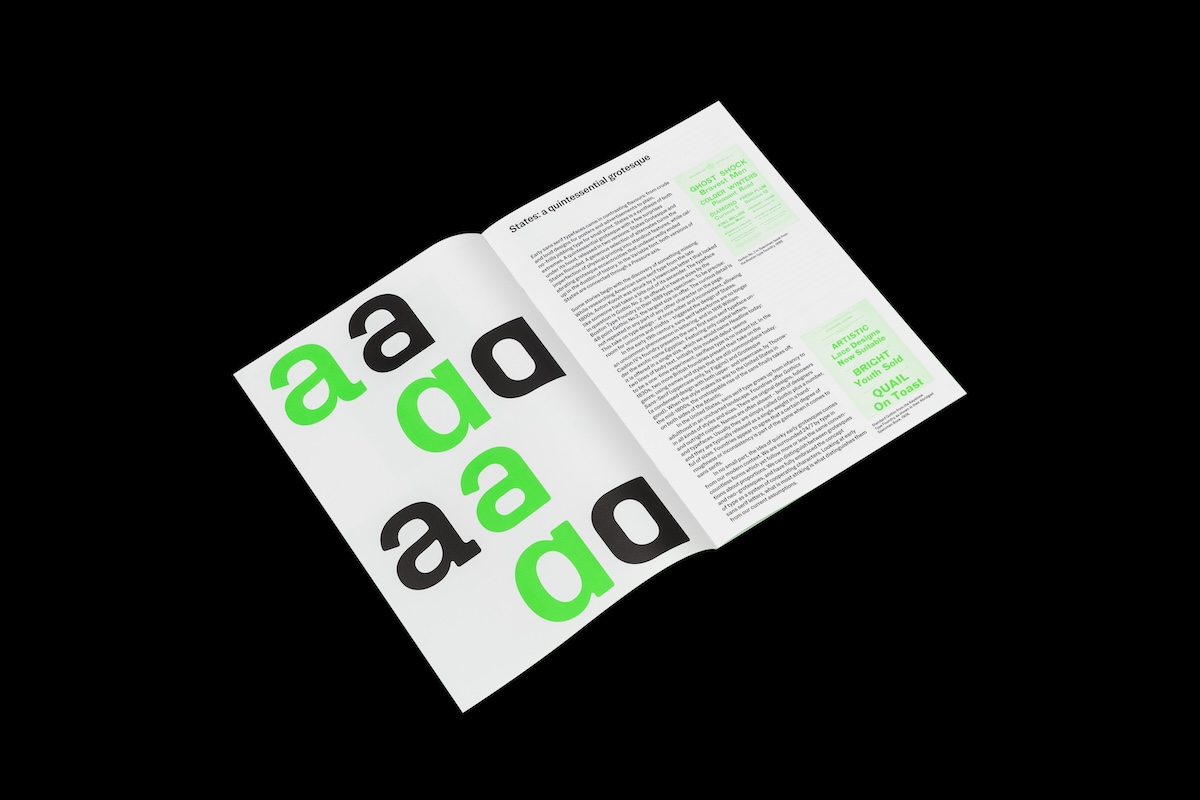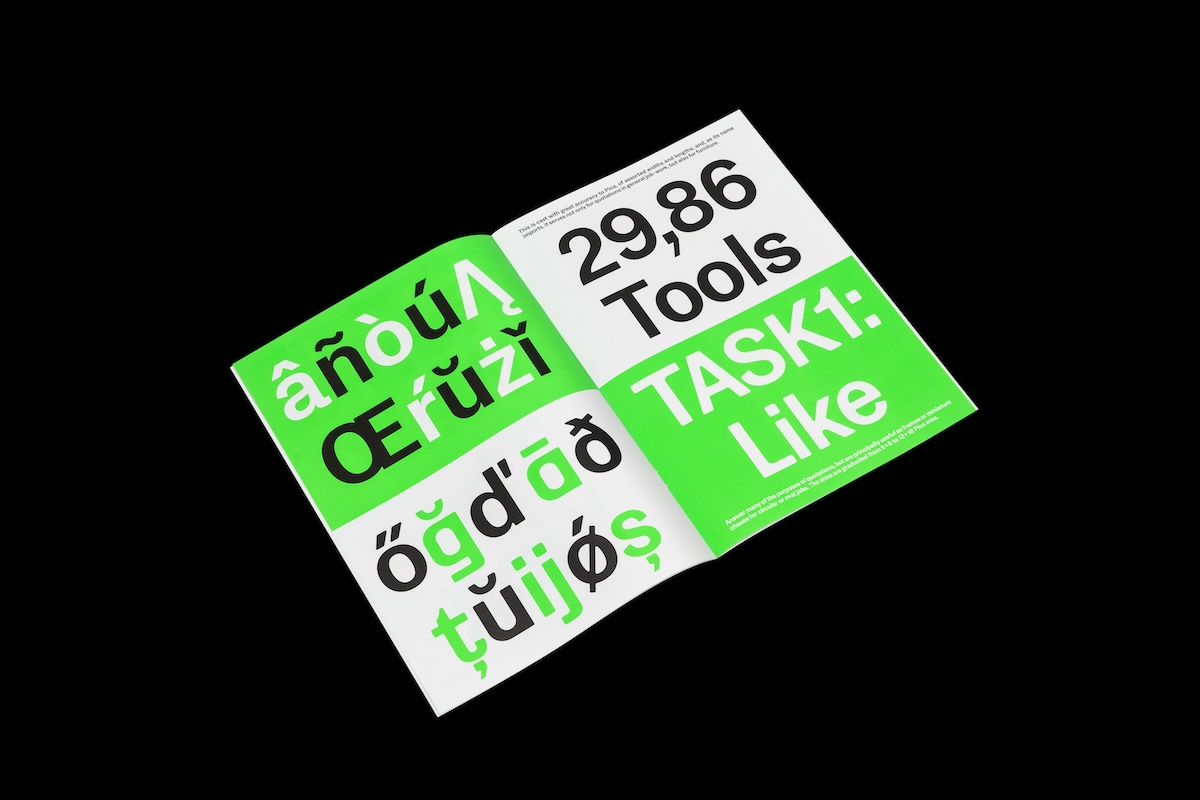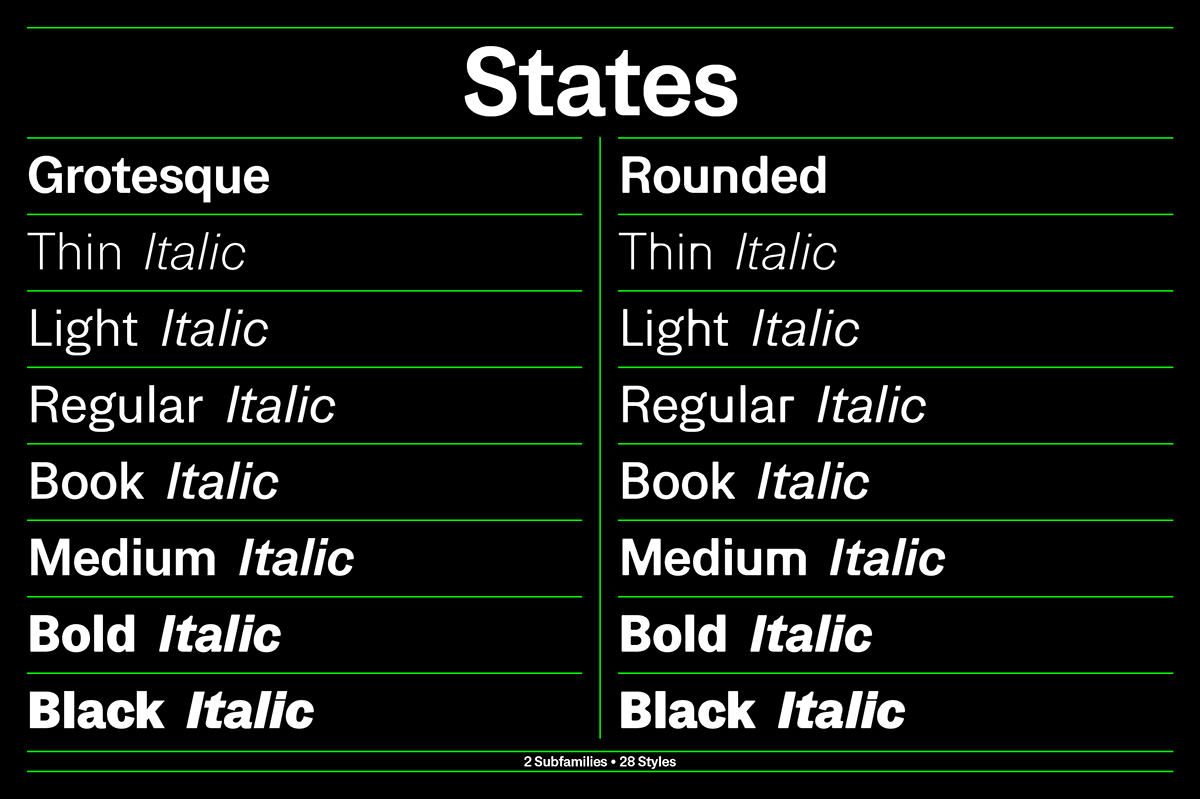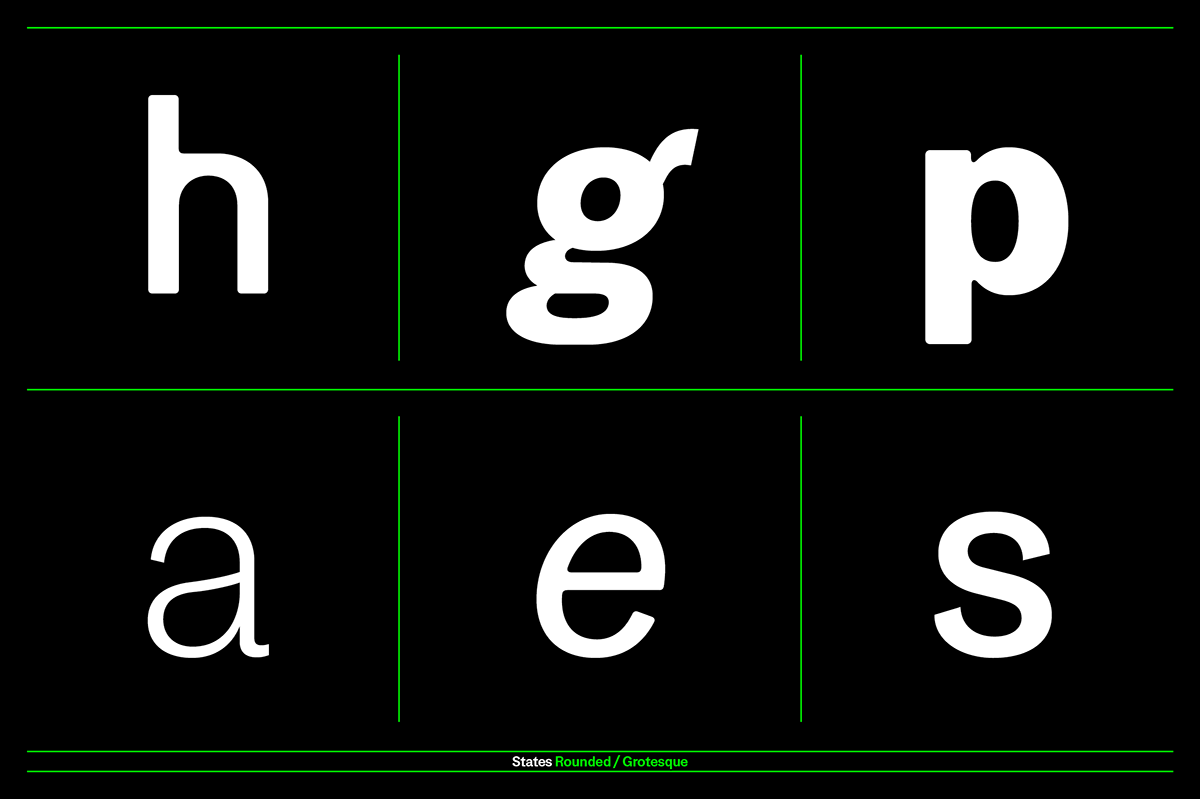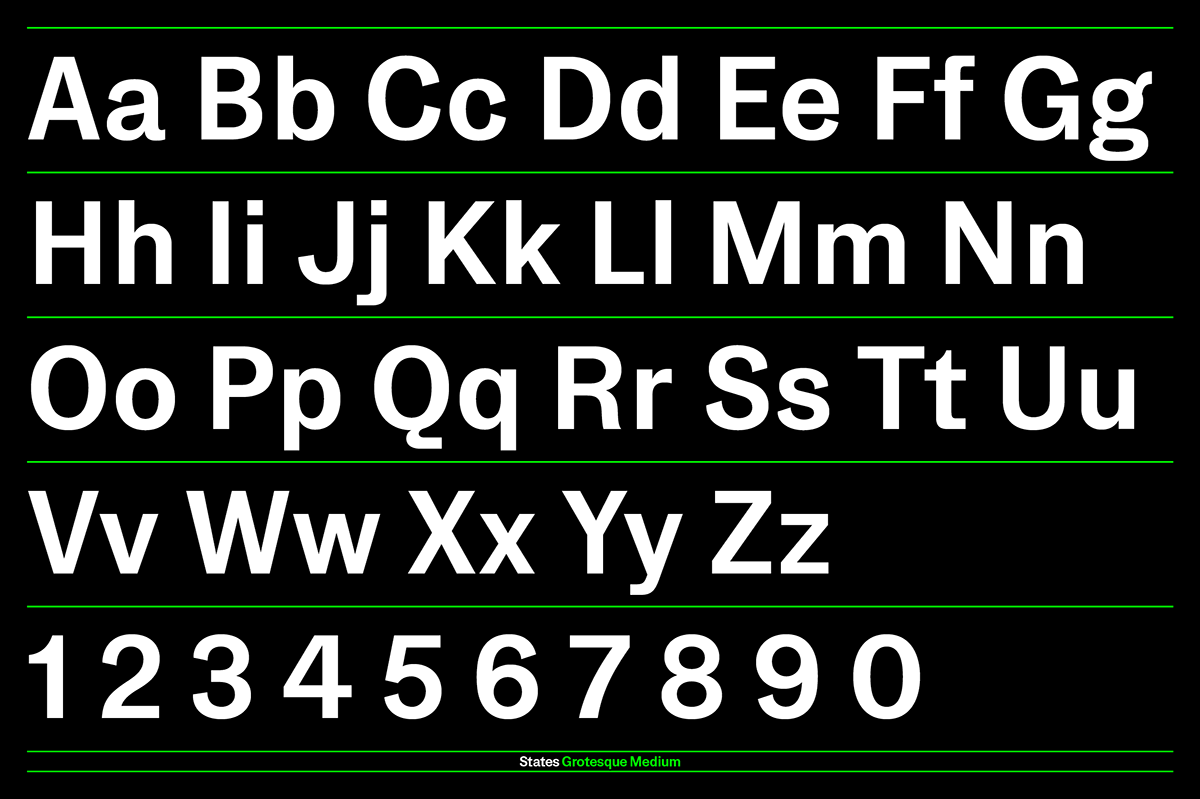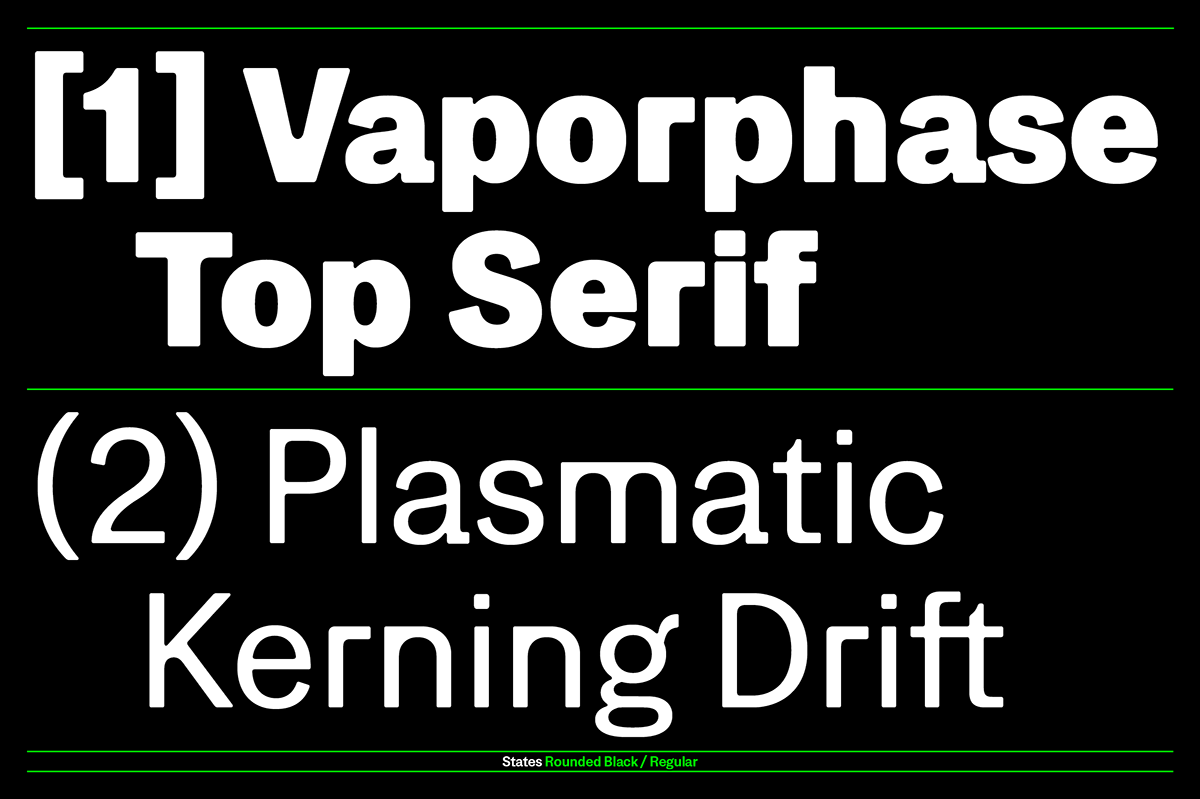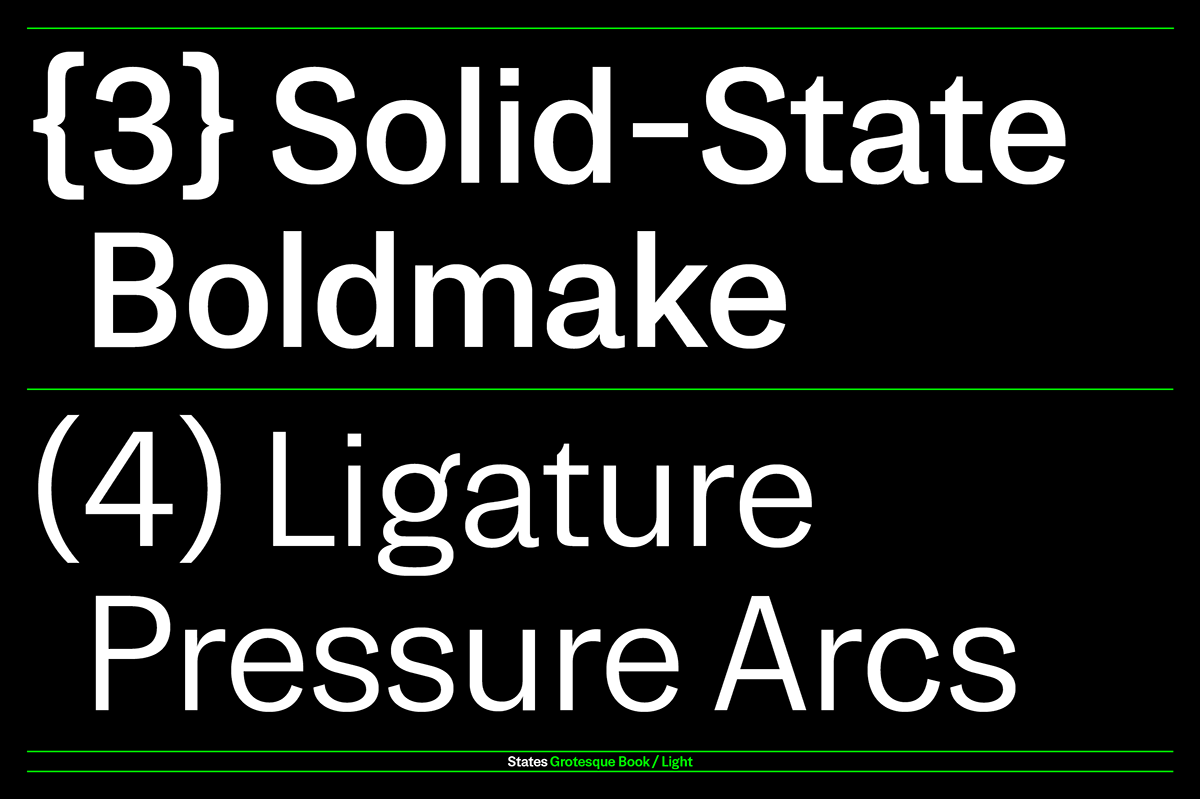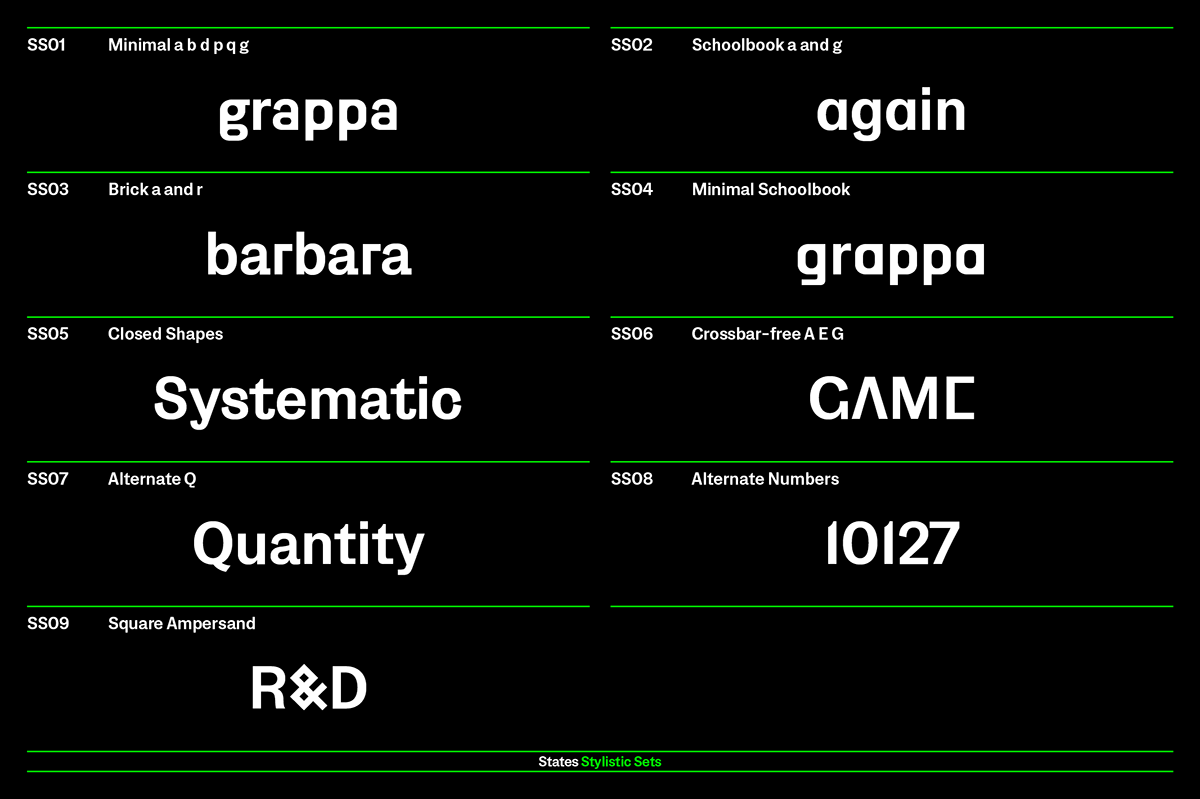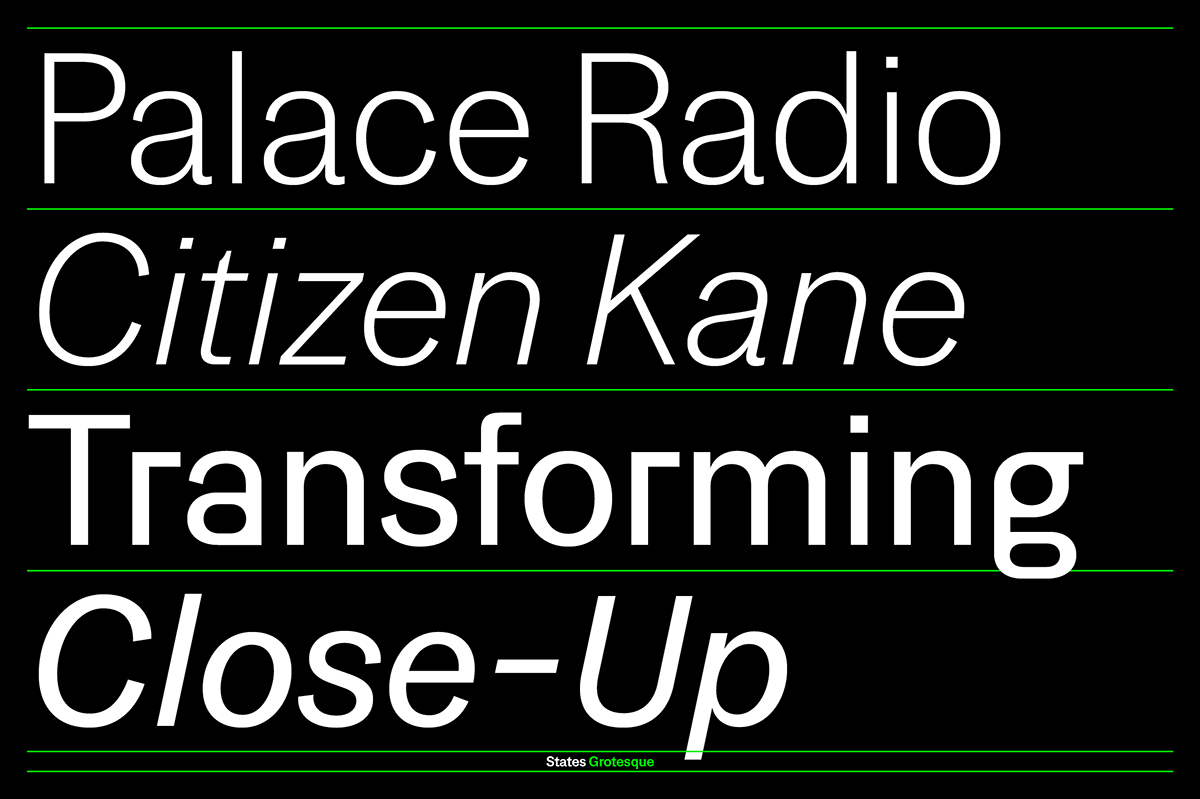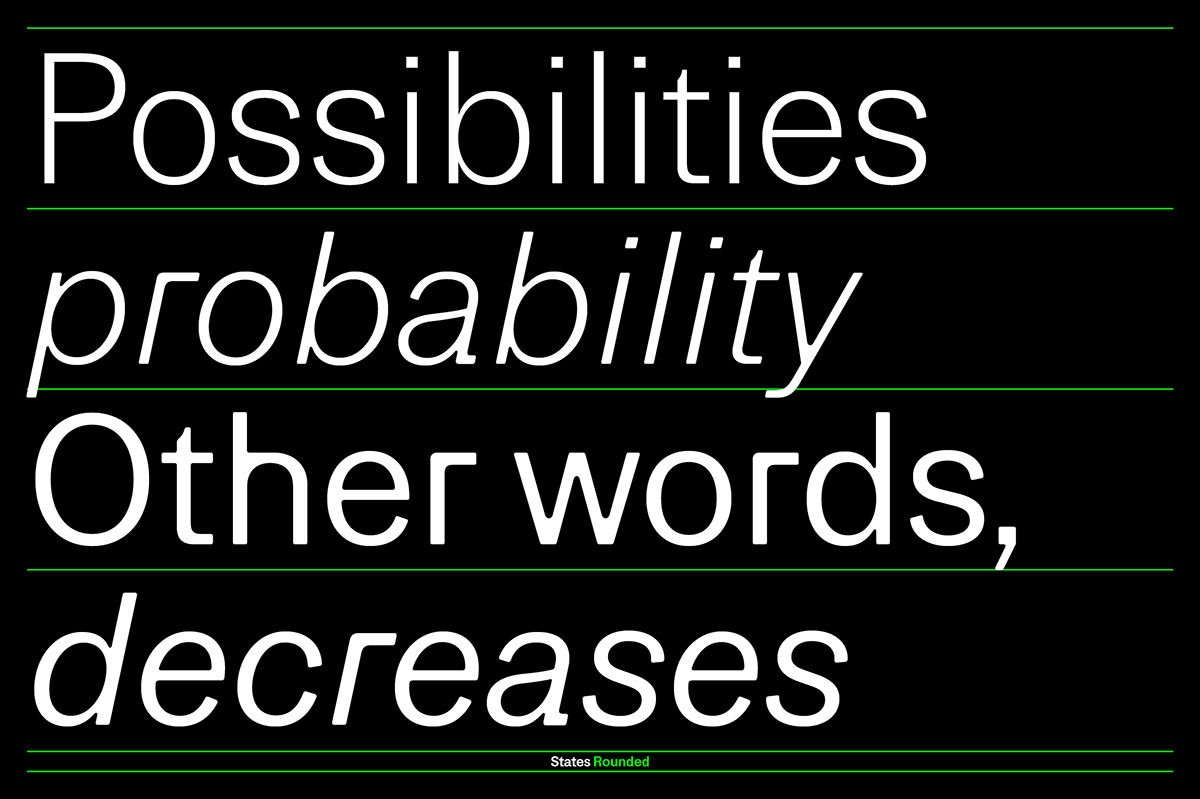
New Typeface States
A Quintessential Grotesque
Fatype has just release States, a new grotesque family in 2 versions and 28 styles.
Early sans serif typefaces came in contrasting flavours: from crude and loud designs for posters and advertisements to plain, no-frills jobbing type for small print. States is a synthesis of both extremes. A quintessential grotesque with a few surprises under its hood, released in two versions: States Grotesque and States Rounded. A love letter to the past through today’s lens, honoring the roots of typefaces as metal tools, with a generous selection of alternates turning the imperfections of letterpress printing into standout features, celebrating grotesque eccentricities that undeservedly ended up in the dustbin of history. In the Variable font, the sharp outlines of Grotesque and the soft edges of Rounded are connected through a Pressure axis.
Some stories begin with the discovery of something missing. While researching American sans serif type from the late 1800s, Anton Koovit was struck by a lowercase letter t that looked like someone had taken a bite out of its ascender. The typeface in question is Gothic No. 2, as offered in twelve sizes by the Boston Type Foundry in their 1889 type specimen. To be precise: 48 point Gothic No.2, the largest size on offer. The curious detail is not repeated in any part of any other character on the page. This take on type design – at once sober and inconsistent, allowing room for unicorns and misfits – triggered the design of States.
In the early 19th century, sans serif letterforms are no longer an uncommon phenomenon in lettering, and in 1816 William Caslon IV’s foundry presents the very first sans serif typeface under the exotic name “Egyptian.” Featuring only capital letters, it is offered in a single size, which we would name “Headline” today: two lines of body text. Initially this modest debut seems to be a one-time experiment; serifless type is no instant hit. In the 1830s, two more British foundries present their take on the genre, using names and styles that are still commonplace today: “Sans-Serif” (uppercase only, by Figgins) and “Grotesque” (a condensed design with both upper- and lowercase, by Thorowgood). When the style makes its way to the United States in the mid-1800s, the unstoppable rise of the sans finally takes off, on both sides of the Atlantic.
In the United States, sans serif type grows up from infancy to adulthood in an uncharted landscape. Foundries offer “Gothics” in all kinds of styles and sizes. There are original designs, followers and outright copies. Names are often absent – both of designers and typefaces. Usually they are simply called “Gothic” plus a number, and they are typically released as a single weight in a handful of sizes. Foundries appear to agree that a certain degree of roughness or inconsistency is part of the game when it comes to sans serifs.
In no small part, the idea of quirky early grotesques comes from our modern context. We are surrounded 24/7 by type in countless forms which yet follow more or less the same conventions about proportions. We can distinguish between grotesques and neo-grotesques, and have fully embraced the concept of type as a system of cooperating characters. Looking at early sans serif letters, what is most striking is what distinguishes them from modern ideas.
Take for example the capital letter G. Beginning with “Caslon’s Egyptian”, the G would often have the same shape as we are accustomed to – but without a crossbar. While that letterform looks unusual now, it was a perfectly normal variation back then.
Even so, the imperfection of early grotesques contrasts with the flawless execution of other typefaces in type specimens of the time; a lack of technique is clearly not the cause. Perhaps foundries had not yet figured out the concept, and maybe some roughness was even desired for a grotesque. The sans serif typefaces of the late 1800s vary between crude and loud display designs and plain, no-frills jobbing type, often used in small sizes. The wild years of the sans serif typeface in the United States come to an end with the creation of mega-merger ATF and the work of type designer Morris Fuller Benton. A new wave of grotesques successfully presents itself as streamlined all-rounders, systematically organised into families with multiple weights and widths. In the next few years, early single-style grotesques quietly exit through the back door.
States is not a revival of any particular typeface, but a love letter to the past through today’s lens. A quintessential modern grotesque with harmonized proportions, including a generous selection of stylistic sets. As a toolbox for amusement and typographic finetuning, these alternate letterforms celebrate an array of grotesque eccentricities that undeservedly ended up in the dustbin of history.
And there’s more: States honors its roots as a physical tool. In the printer’s workshop, all kinds of pressure–from the printing press to deadlines–impacted the appearance of letters. Metal type was often used well past its expiry date and forced to perform despite clogged joints and missing details. Koovit saw an opportunity to turn these accidents into standout features. The fonts contains two “minimal” stylistic sets. Inspired by battered metal type, these radically reduced letterforms offer futuristic options for a selection of lowercase characters. States includes a Rounded variant as a reference to clogged up printed letters. Users of the Variable version can set their ideal roundness with a “Pressure” axis.
States by Fatype
Foundry: Fatype
Designer: Anton Koovit
Font mastering: Emma Marichal
Graphic design: Federico Barbon
Text: Matthijs Sluiter
Release: April 2025 (2 Medium styles), February 2026 (Full Family)
Styles: 28 styles